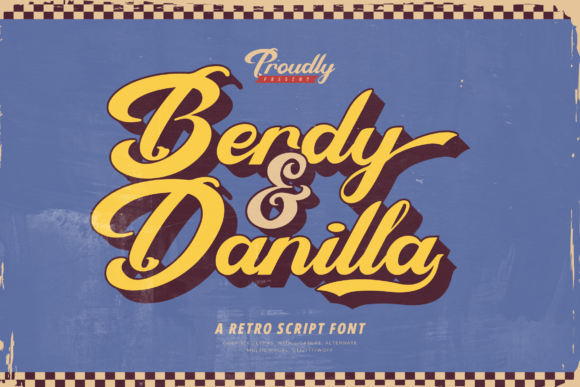
The Retro Charm of Berdy Danilla Font: A Designer’s Delight
I still remember the project that led me to discover the Berdy Danilla font. I was working on a vintage-themed invitation for a client’s wedding, and I was struggling to find the perfect font that would evoke the classic, playful look I was going for. The client wanted something that would transport their guests back in time, and I was determined to deliver. After hours of searching, I stumbled upon Berdy Danilla, and it was love at first sight. The smooth, rounded letters and retro vibe instantly captured the essence of what I was looking for.
An Honest Review of Berdy Danilla Font
What I Love About Berdy Danilla ✨
- ✅ The font’s classic, playful look is perfect for vintage-themed designs.
- ✅ The smooth, rounded letters add a touch of nostalgia to any design.
- ✅ It’s incredibly versatile and can be used for invitations, posters, branding, and more.
- ✅ The font is easy to read, even in smaller sizes.
While Berdy Danilla is an amazing font, there are a few things to keep in mind. For example, ⚠️ some letters may not have perfect symmetry, which can be a minor issue for certain designs. Additionally, 🤔 the font may not be suitable for very formal or corporate designs, as it has a distinctly playful and retro vibe.
The Backstory Behind Berdy Danilla Font
Berdy Danilla was designed by a talented type designer who’s passionate about creating fonts that evoke a sense of nostalgia. The font was inspired by classic retro designs from the 1950s and 60s, with a dash of modern playfulness. The designer’s goal was to create a font that’s both elegant and fun, perfect for designs that want to transport readers back in time.
| Font Name | Berdy Danilla Font |
| Author | Denustudios |
Q: What type of designs is Berdy Danilla best suited for?
A: Berdy Danilla is perfect for vintage-themed designs, invitations, posters, branding, and more.
Q: Does Berdy Danilla support OpenType features?
A: Yes, Berdy Danilla supports OpenType features, including ligatures, stylistic alternates, and glyphs.